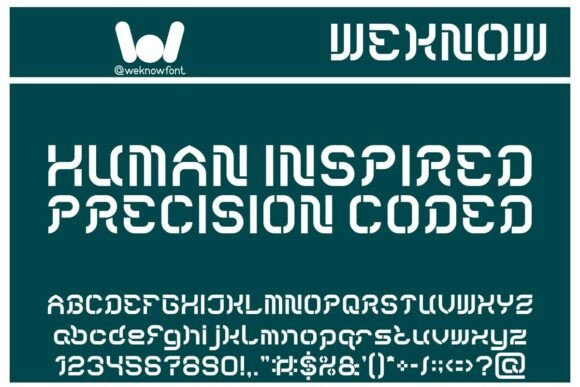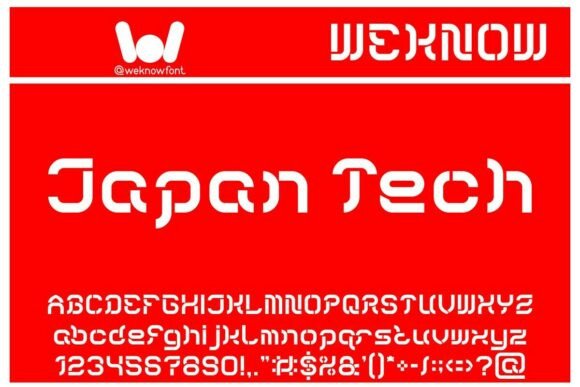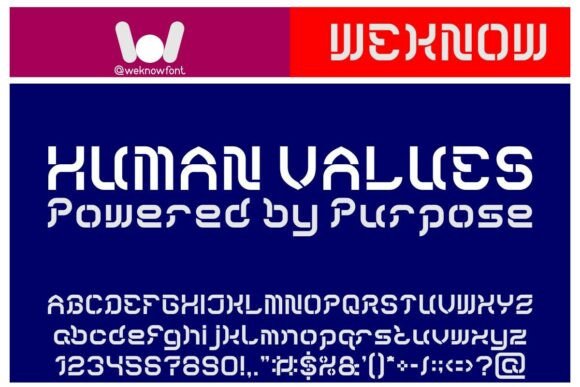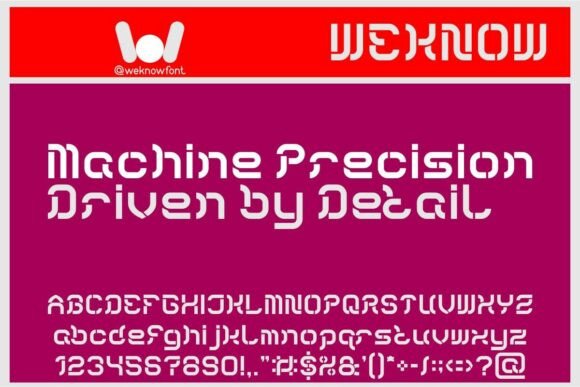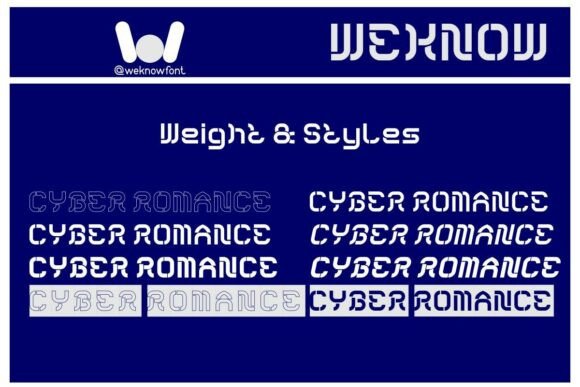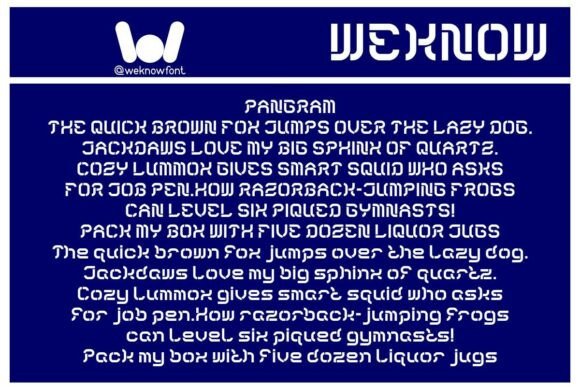
Introduction to Cyber Romance Font
Experience the future of typography with Cyber Romance—a fusion of techno and sci-fi design elements, stylized with geometric and modular blueprints.
Embodying a bold, futuristic aura, this digital display typeface is an ideal match for creating captivating headlines and cutting-edge corporate or brand identities Its robotic, AI-inspired aesthetics are perfect for apparel designs, games, books, magazines, and comic themes.